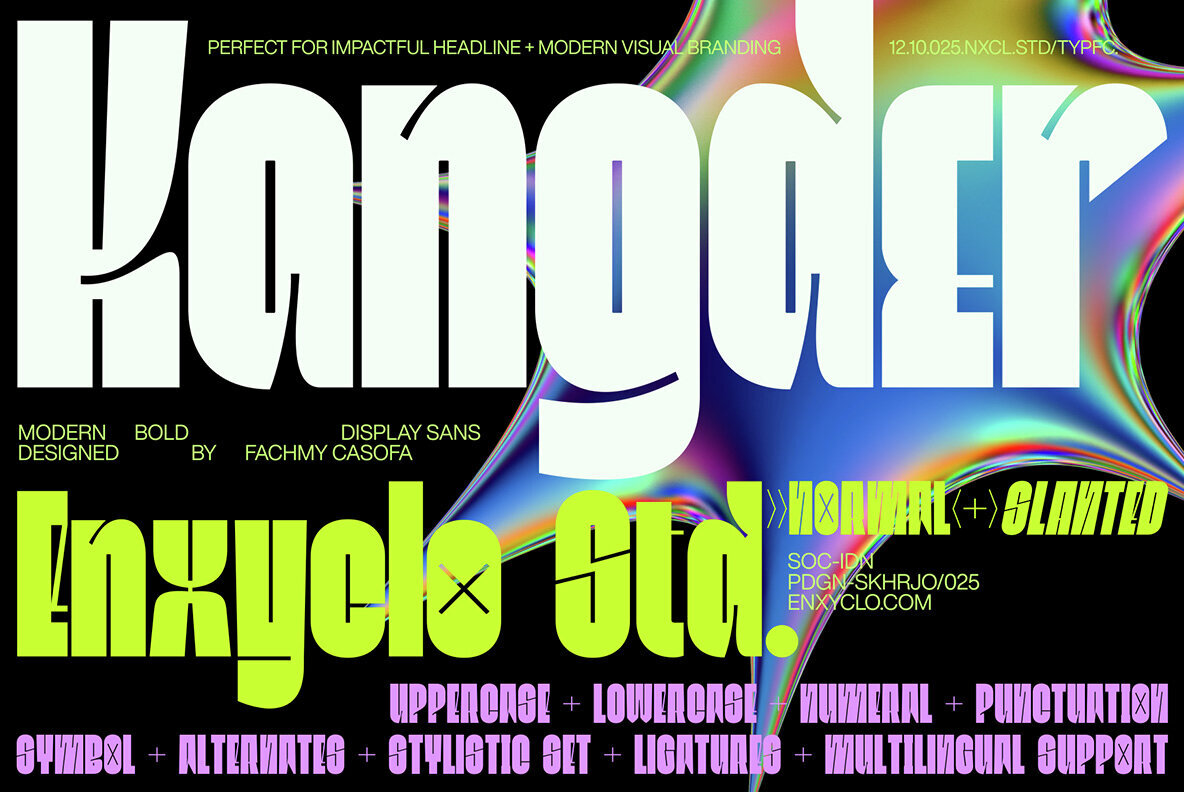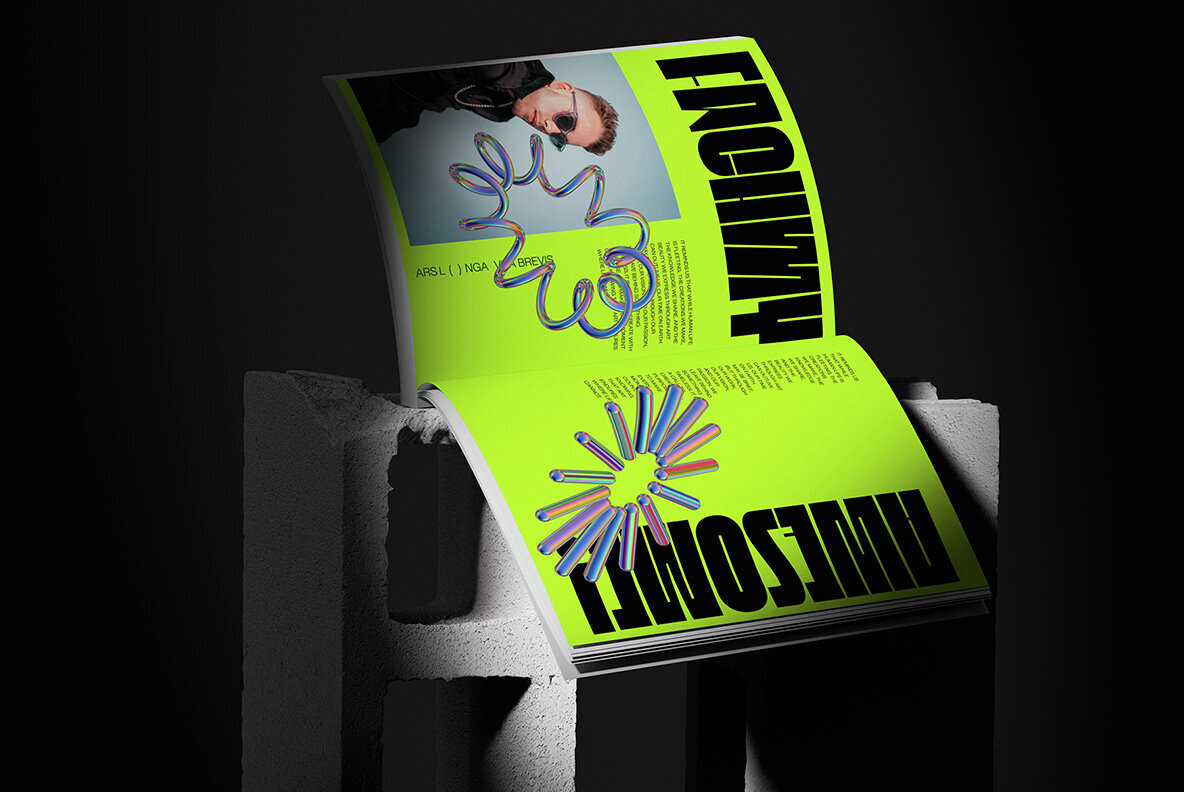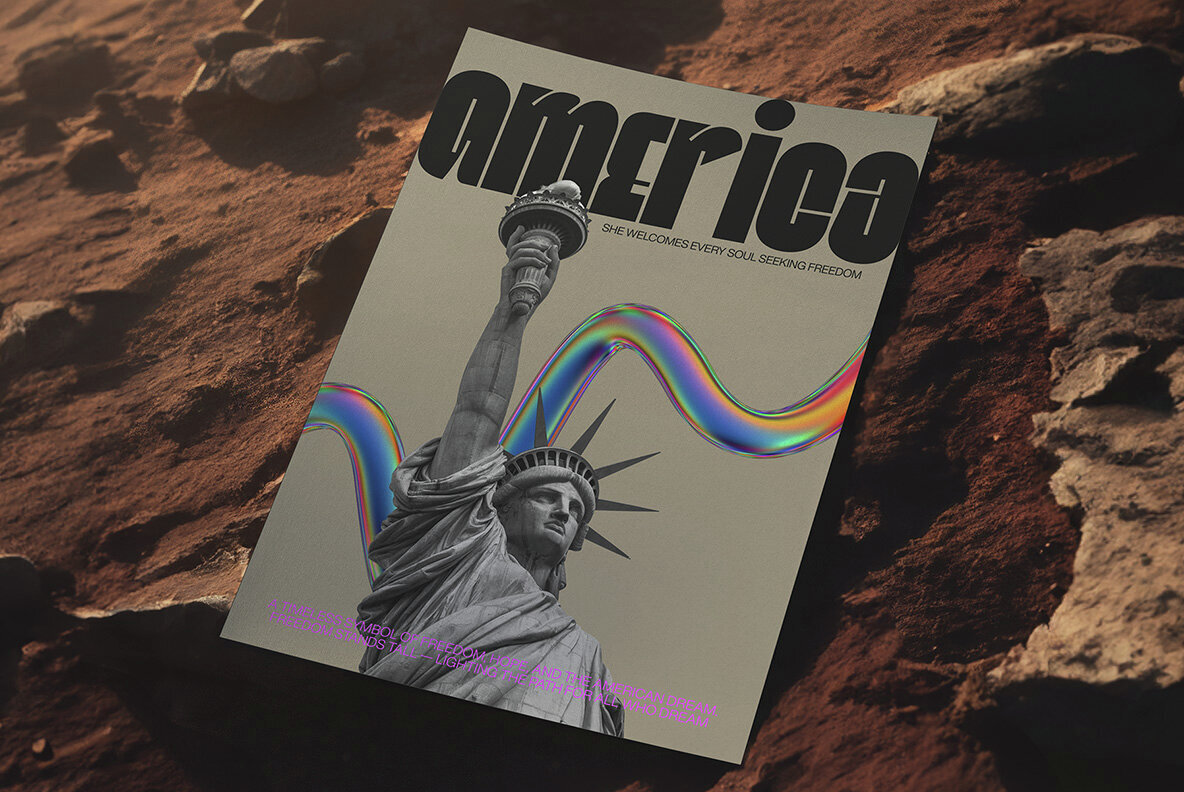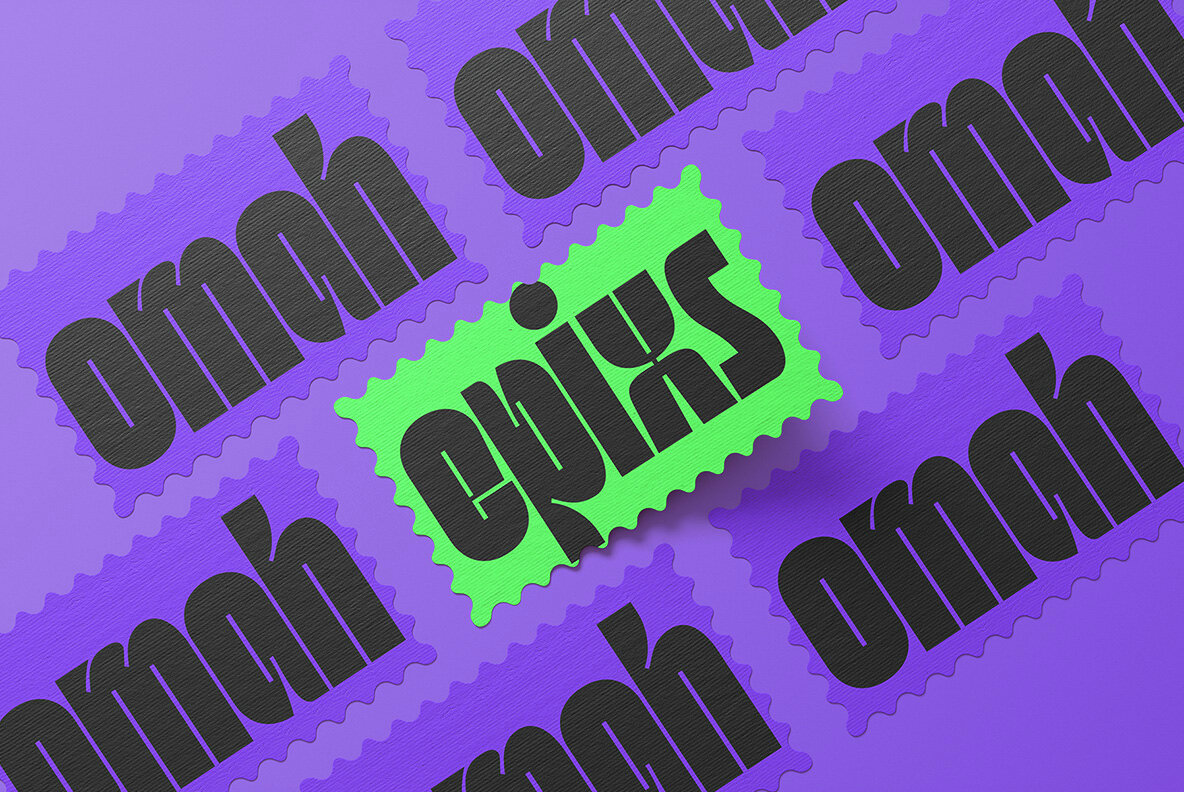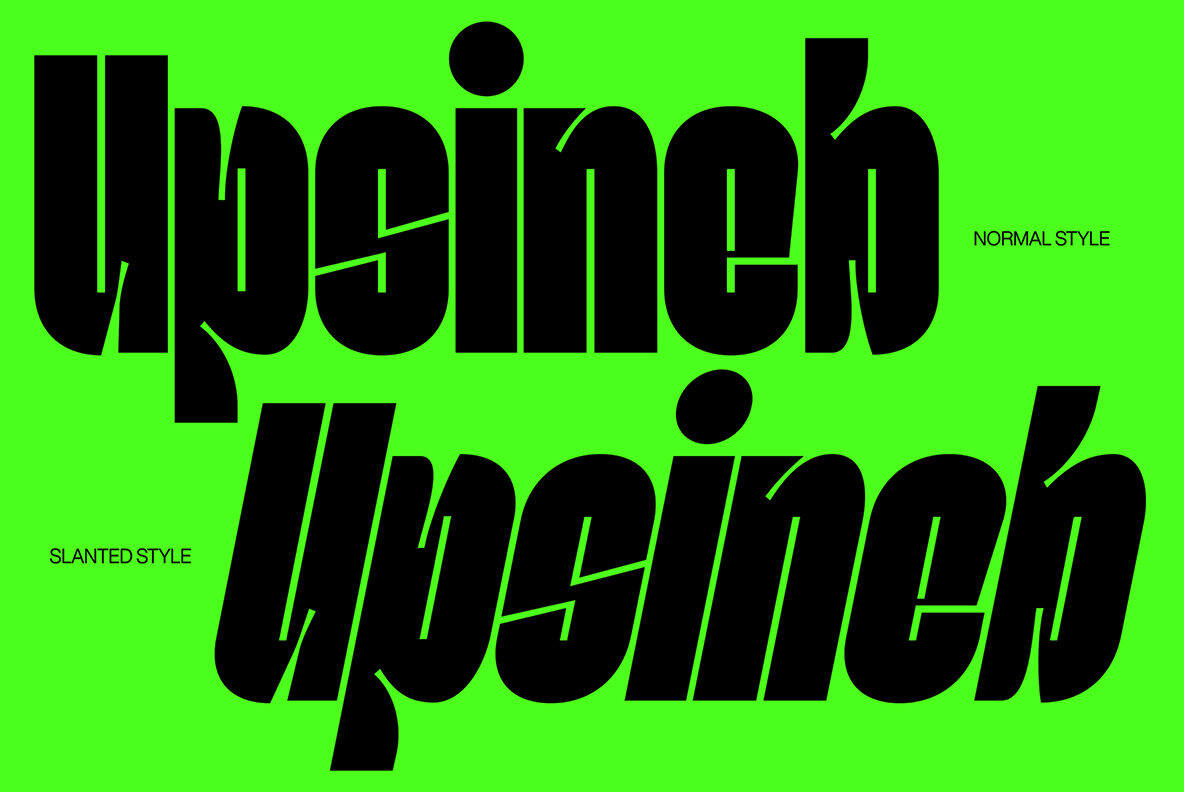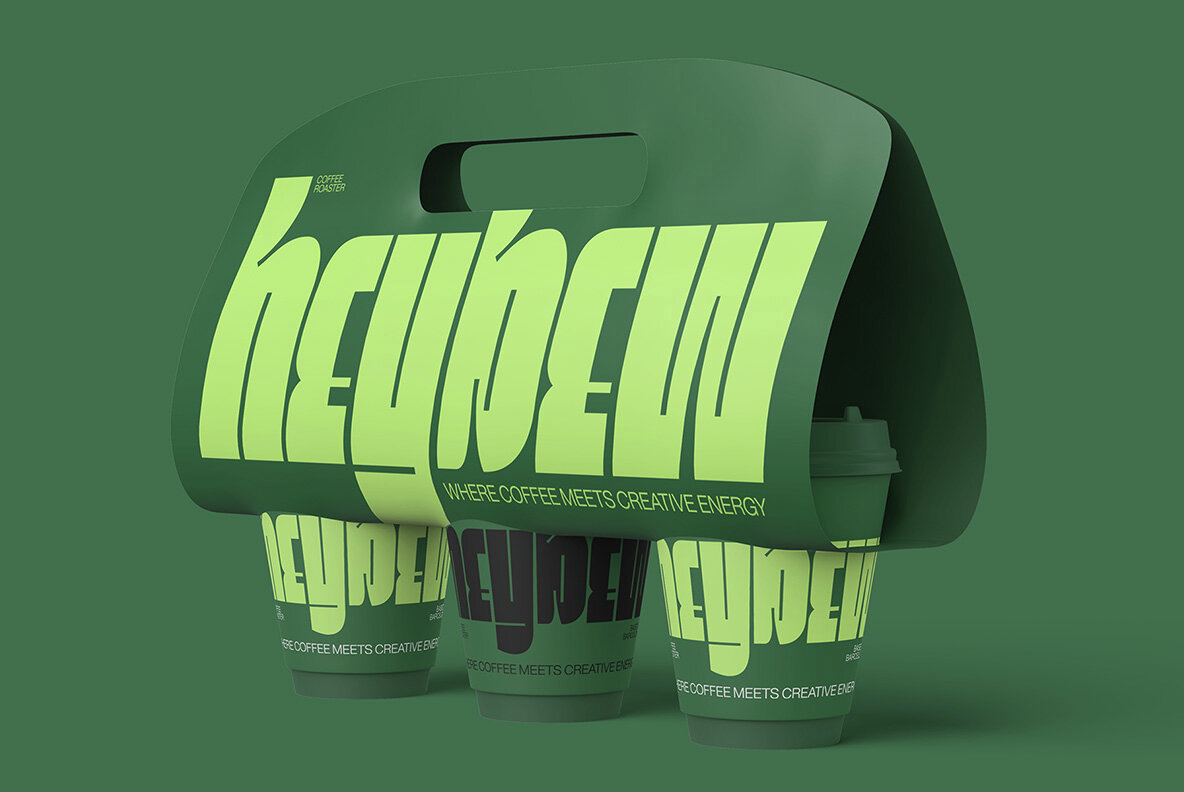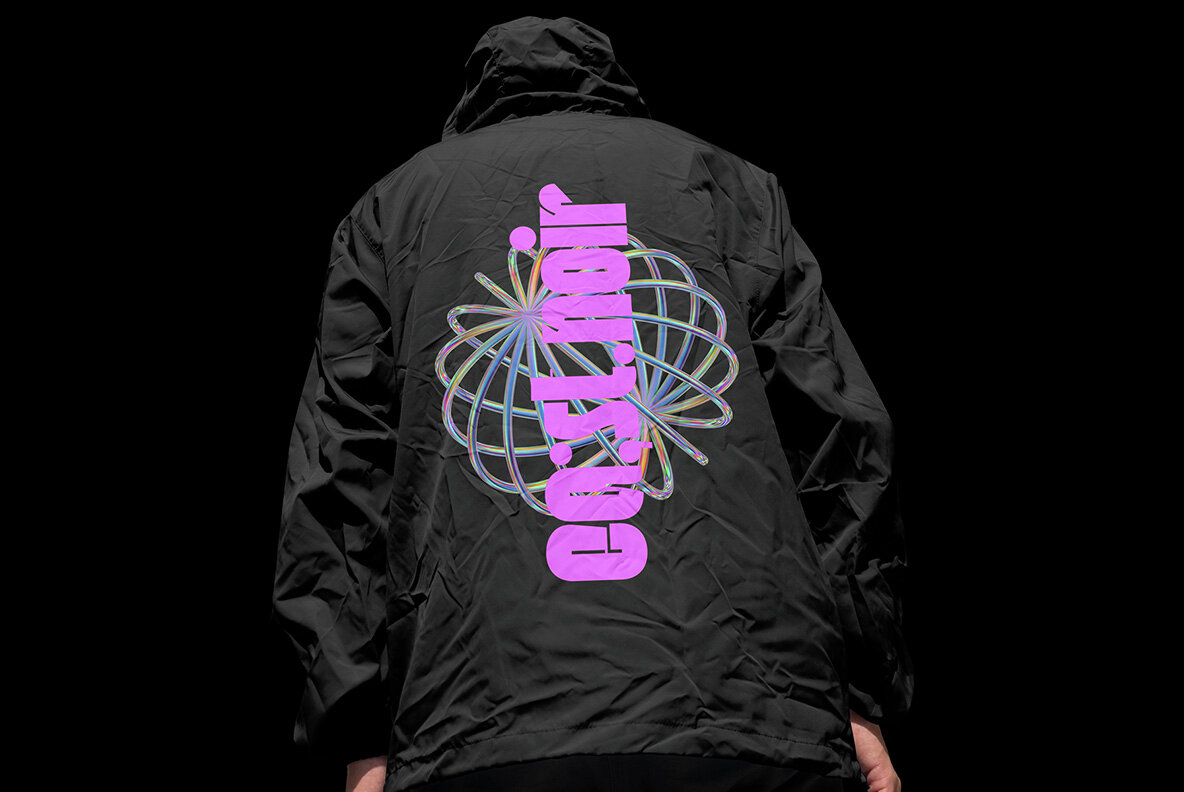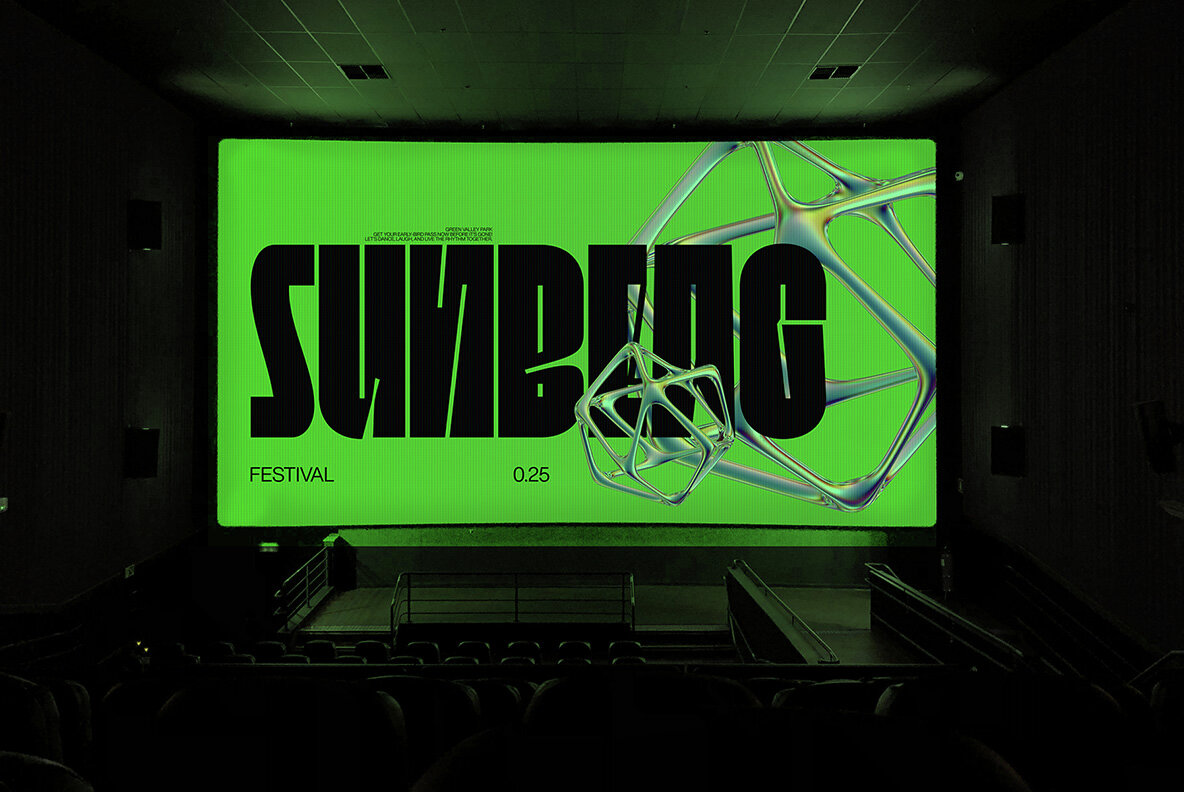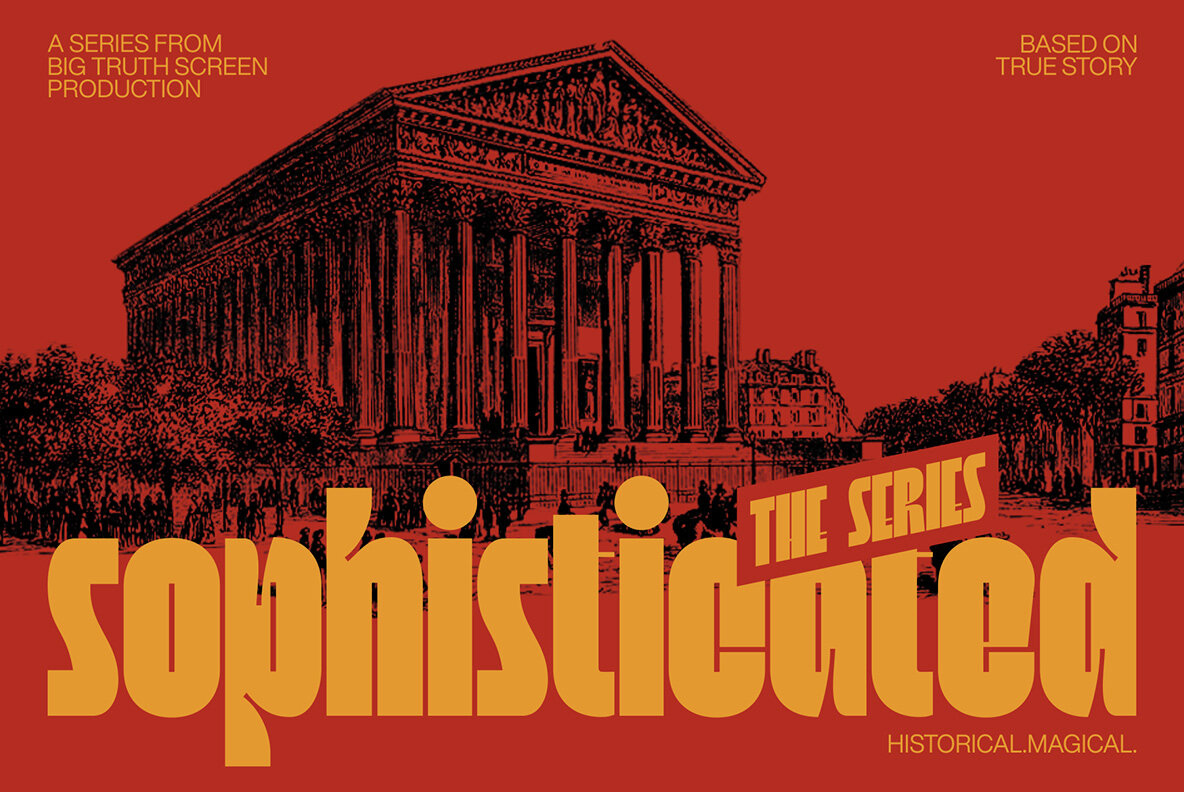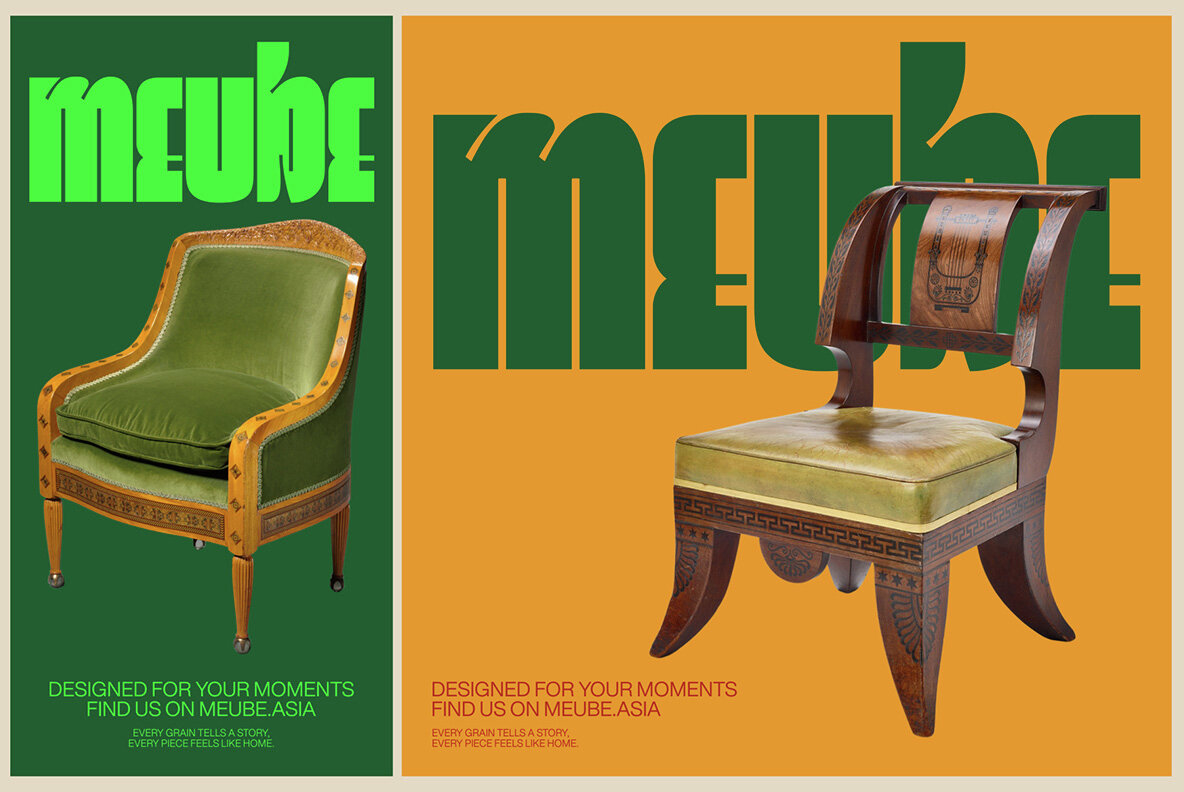
Kangder Font
Kangder Regular
Kangder Slanted
Kangder embodies a modern and bold aesthetic, expertly crafted to leave a lasting impression on any design project. Its wide letterforms are balanced with sharp edges, creating an immediate visual impact that is ideal for logos, headlines, and display purposes. The typeface exudes a fresh and confident vibe, providing designers with a stylish yet professional tool to enrich their creative endeavors. Features:Kangder: A Modern Bold Display Typeface